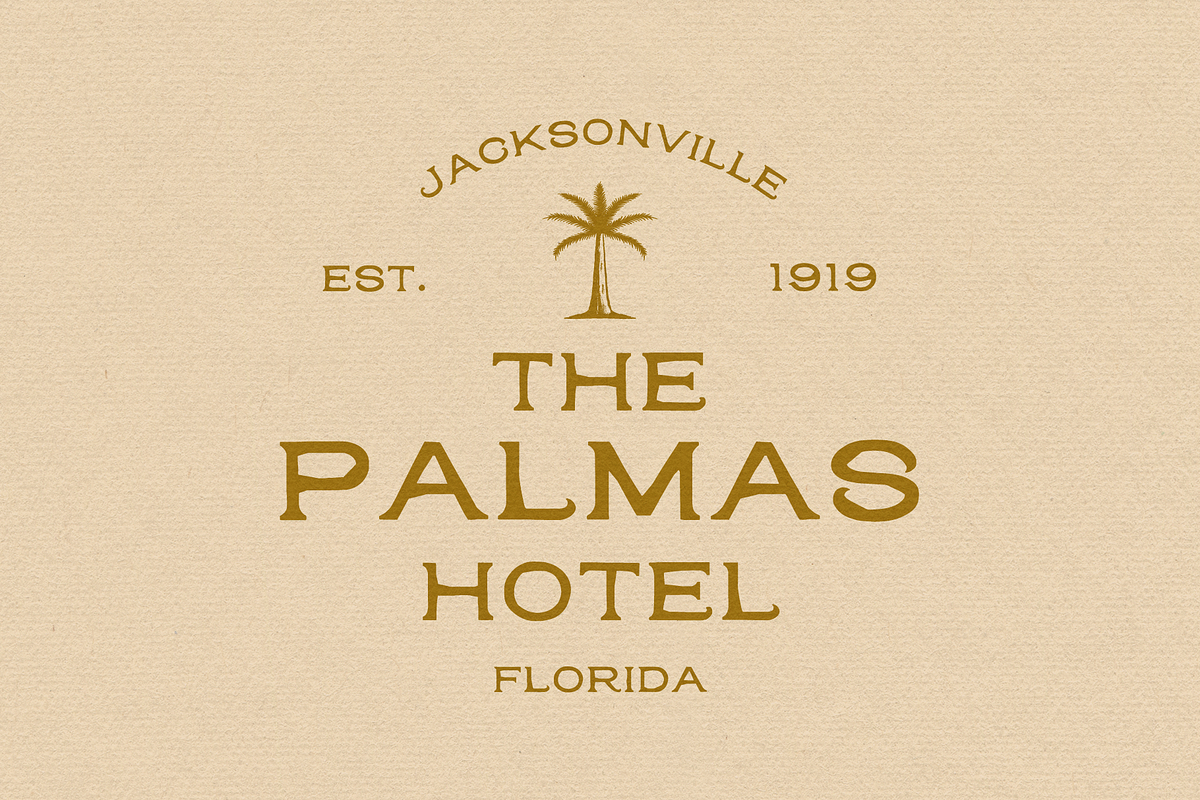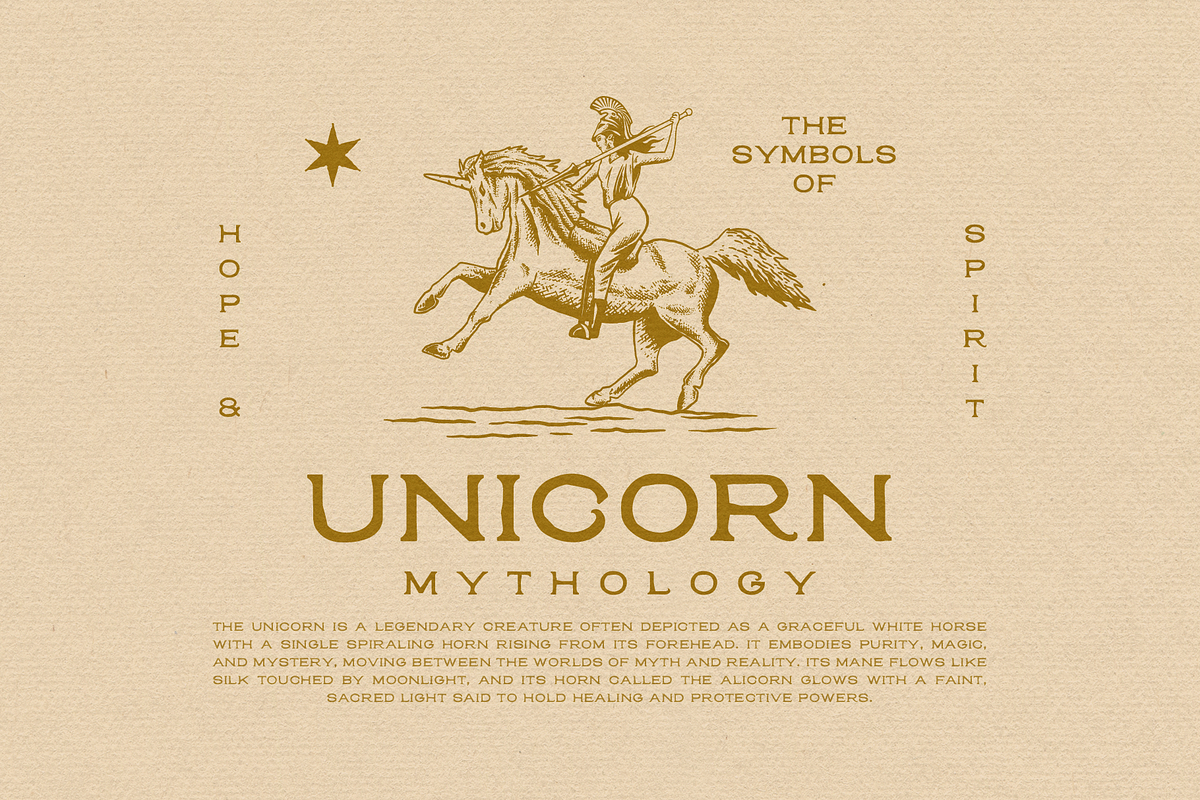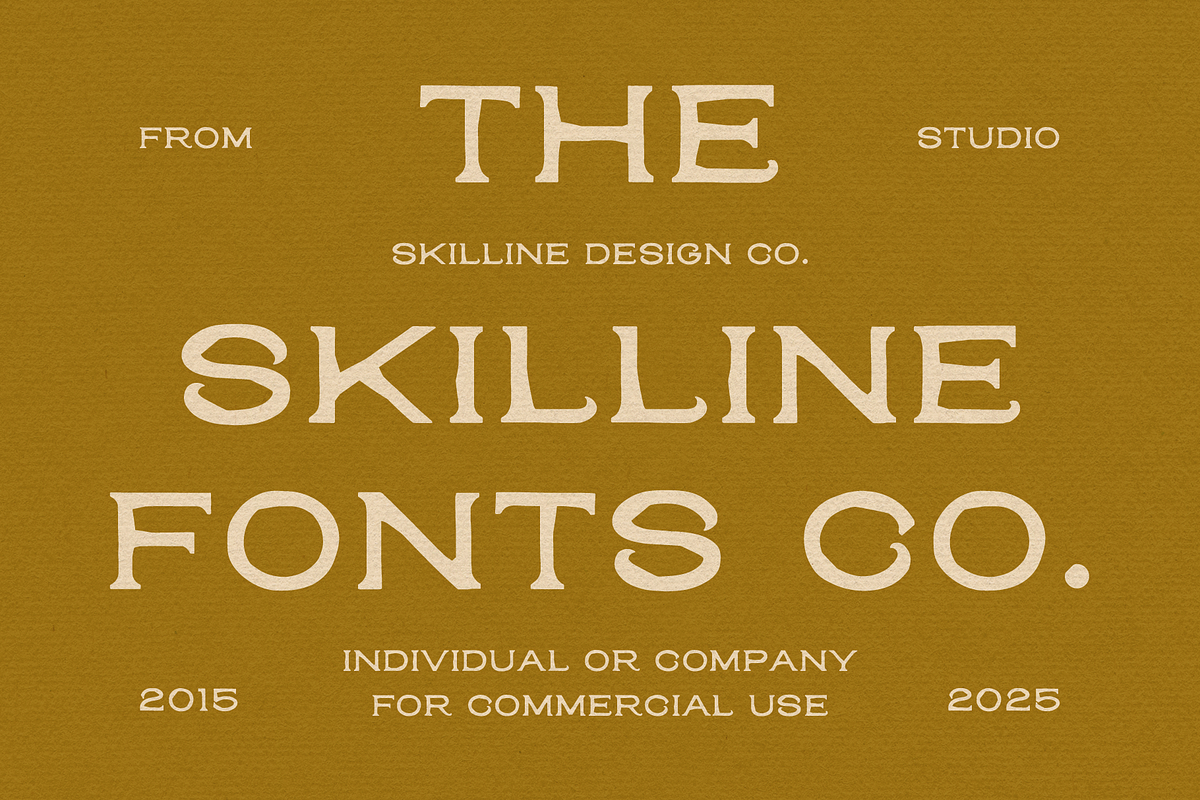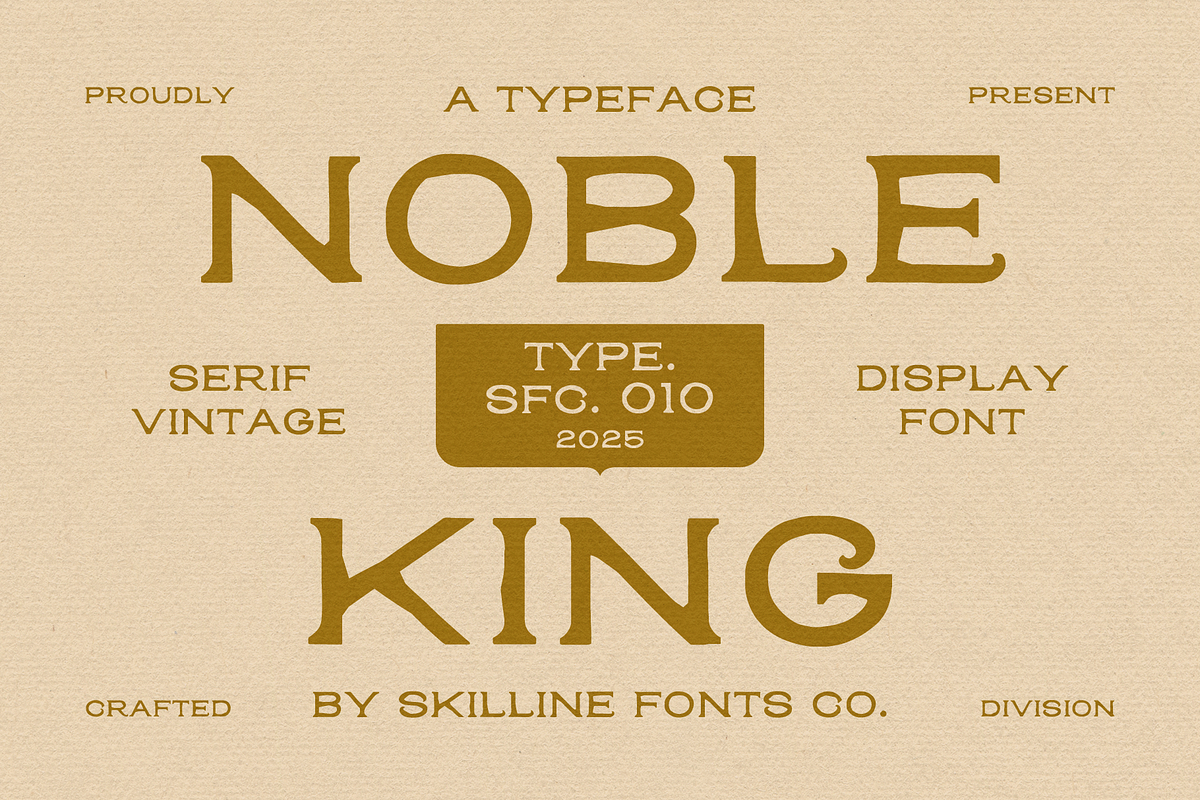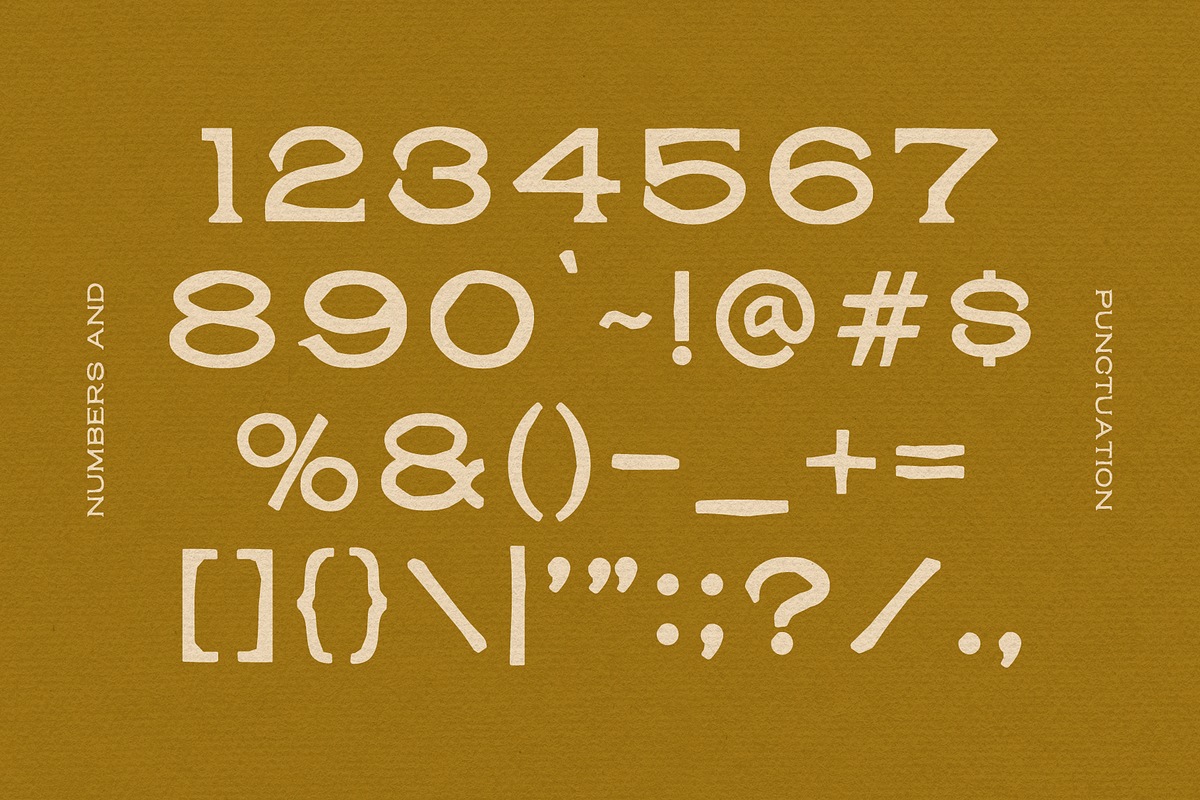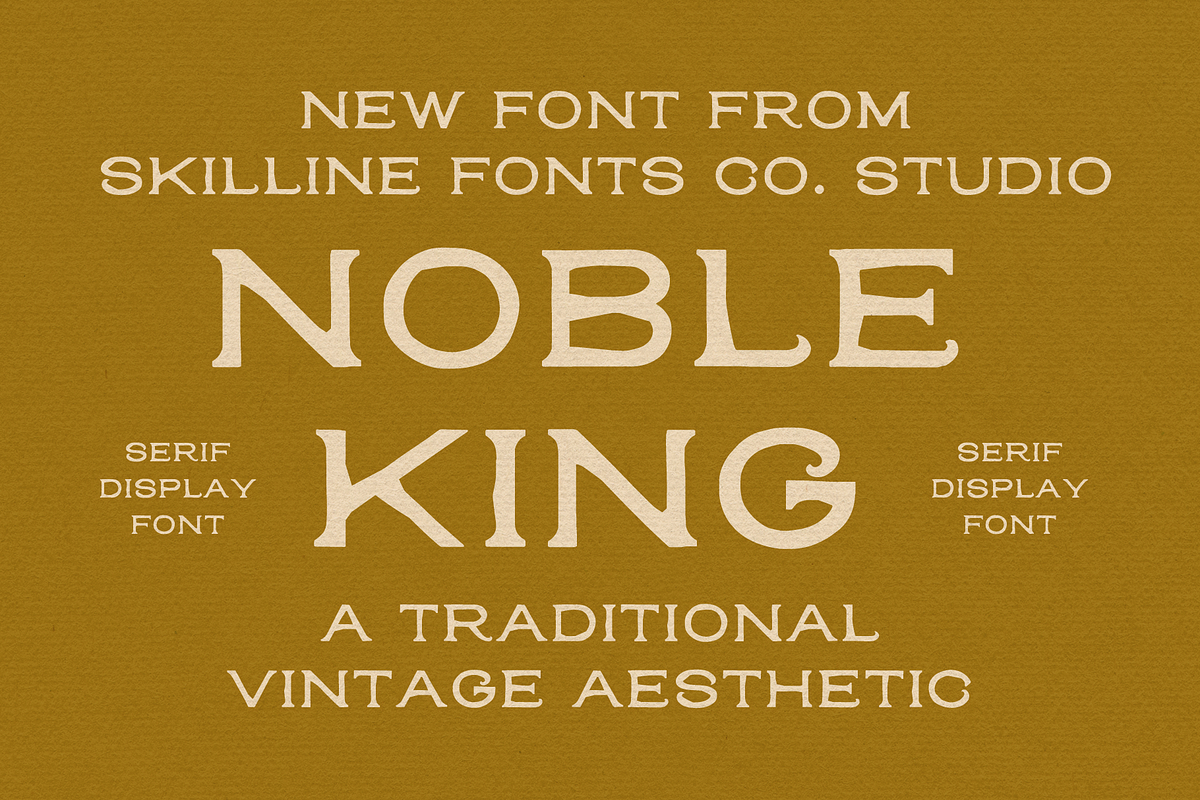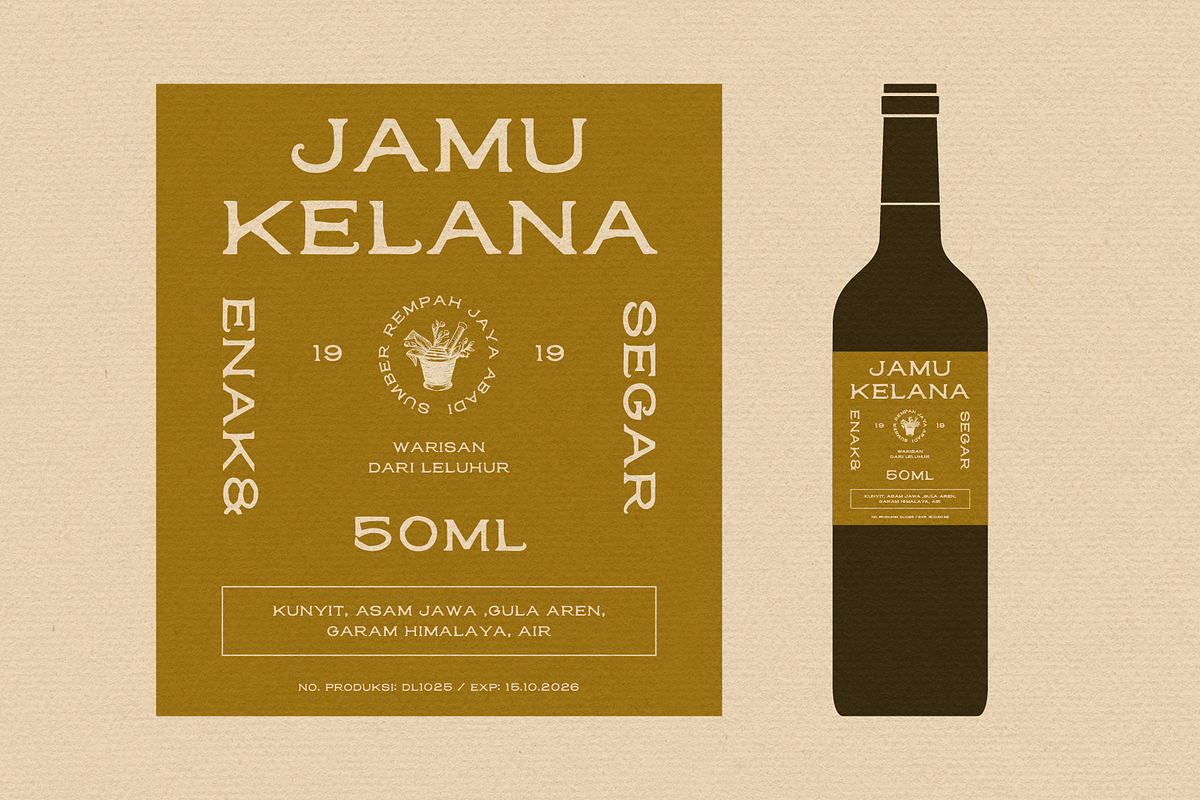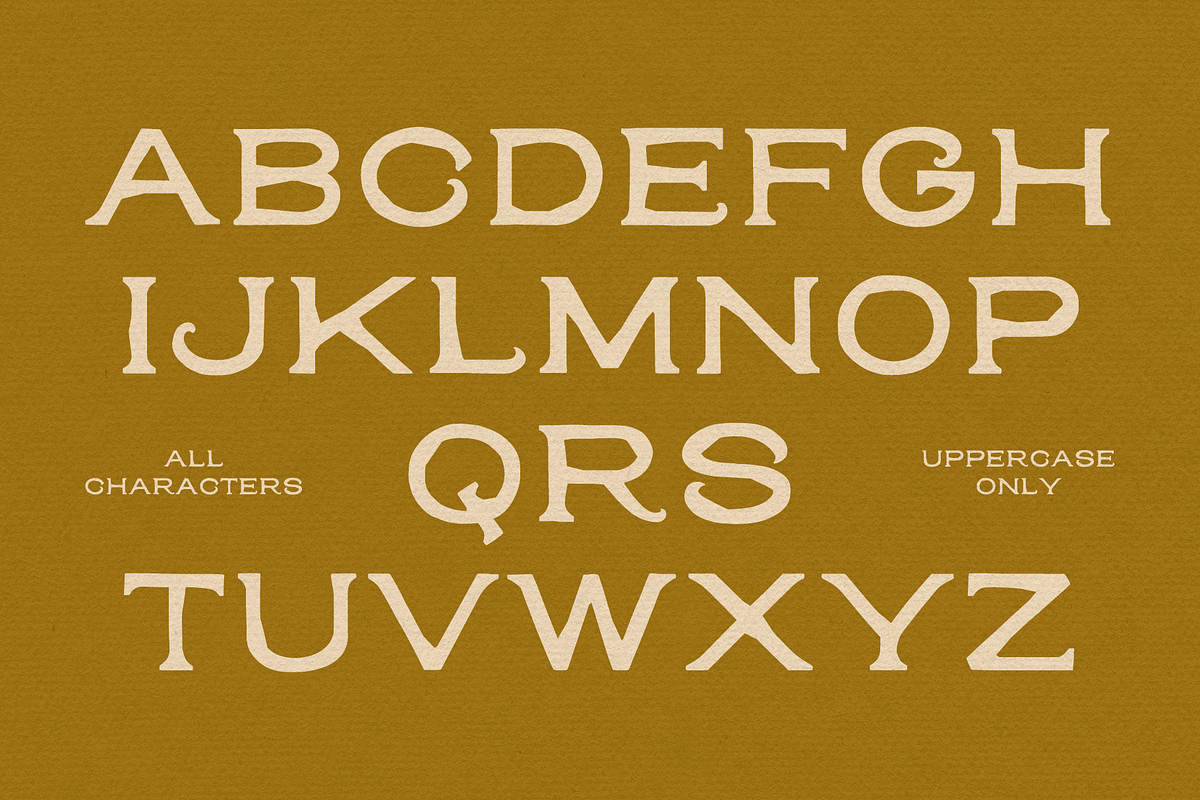
SFC Noble King
Noble King is a bold vintage serif display font inspired by the strength of classic print design, antique signage, and timeless craftsmanship. With its sculpted serifs and refined yet rugged form, Noble King blends old-world charm with a confident modern presence perfect for designers who value authenticity and character.
Designed with balance and intention, each letterform carries subtle imperfections that create warmth and individuality. The result is a font that feels both noble and approachable, combining regal structure with handcrafted soul.
Noble King excels in bold applications logos, packaging, apparel graphics, and editorial headlines where a touch of heritage and authority is desired. Whether you’re crafting a premium brand, a timeless label, or a striking display layout, Noble King commands attention with its vintage elegance and enduring strength.
Ideal Applications for Noble King
Heritage branding and vintage-inspired logos
Packaging design for premium or artisanal goods
Apparel graphics and bold merchandise layouts
Editorial headlines and posters with a classic flair
Retro-style digital graphics and timeless visual identities